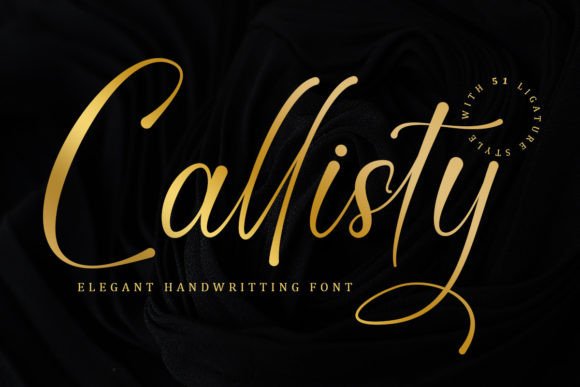
Nestled within our digital haven of creative expression, allow us to introduce Callisty, an exquisitely handcrafted script font that will transport your designs to an ethereal realm of festive wonder. As the harbinger of captivating Christmas posters, Callisty exudes an alluring aura of grace and elegance, beckoning you to create visual masterpieces that evoke the magic of the season.
Embark on a journey of artistic exploration as you discover the distinctive beauty of Callisty, a font imbued with the spirit of Christmas. Each stroke and curve dances across the screen, reminiscent of snow-kissed landscapes and the warmth of crackling fireplaces. With its meticulously crafted ligatures, Callisty offers a symphony of visual delight, transforming ordinary words into enchanting works of art.
Unleash your creativity and let Callisty guide you through a world of Christmas-themed designs. From enchanting posters that capture the essence of the season to personalized greeting cards that convey heartfelt messages, Callisty will elevate your projects to new heights. Its versatility knows no bounds, allowing you to weave festive magic into any design concept.
Join a community of creative enthusiasts who have embraced Callisty as their font of choice for Christmas-inspired creations. Witness the transformation as Callisty breathes life into your designs, captivating audiences with its timeless charm and festive allure. Let your imagination soar as you explore the endless possibilities that await you with Callisty by your side.